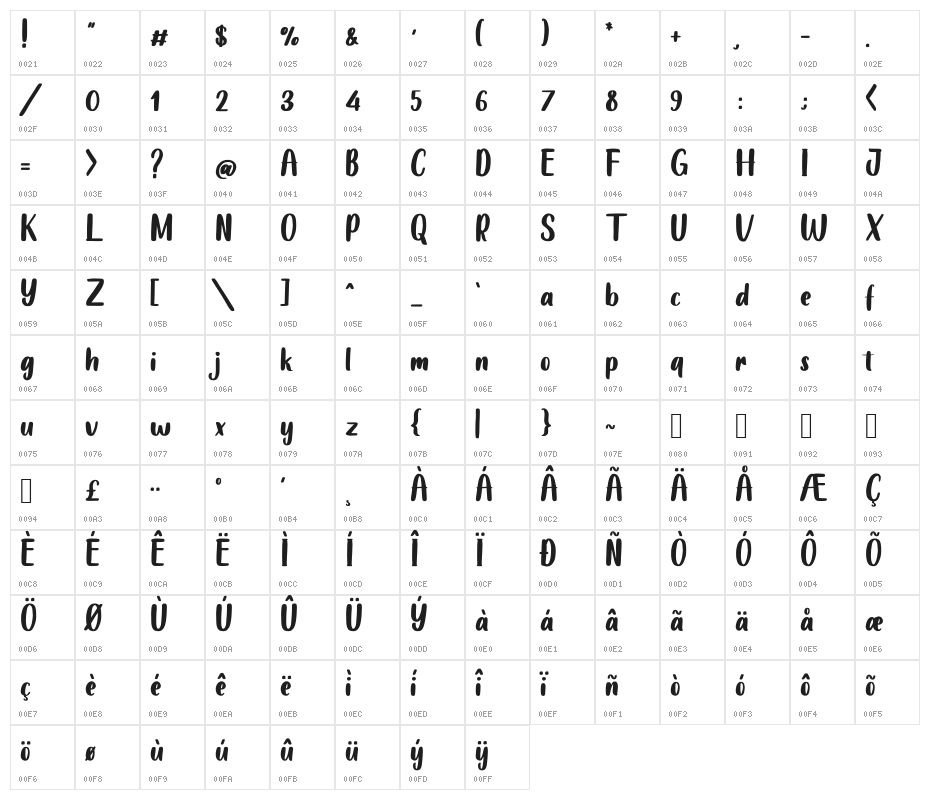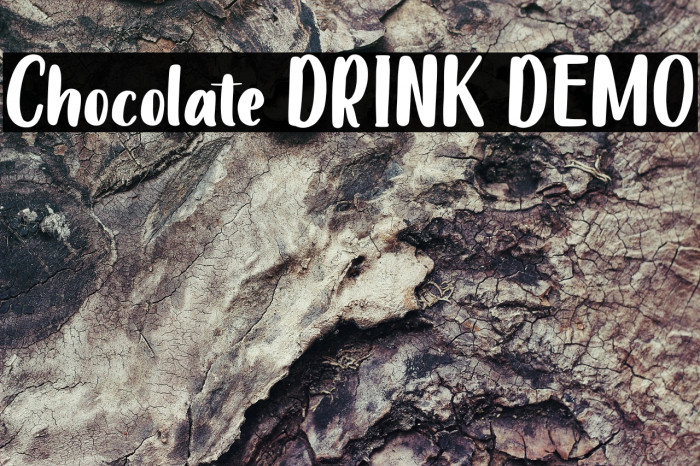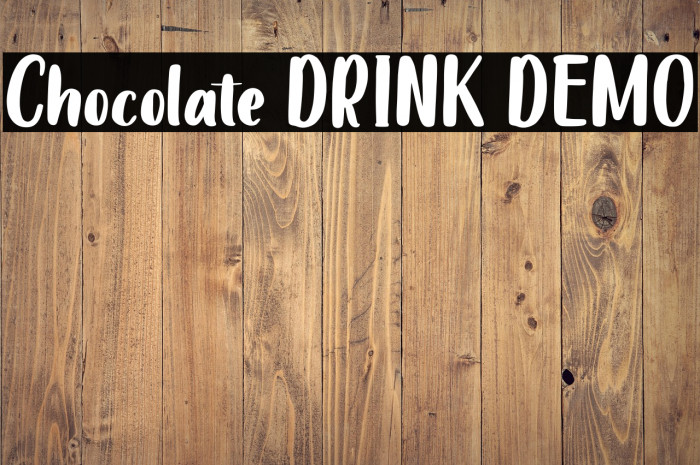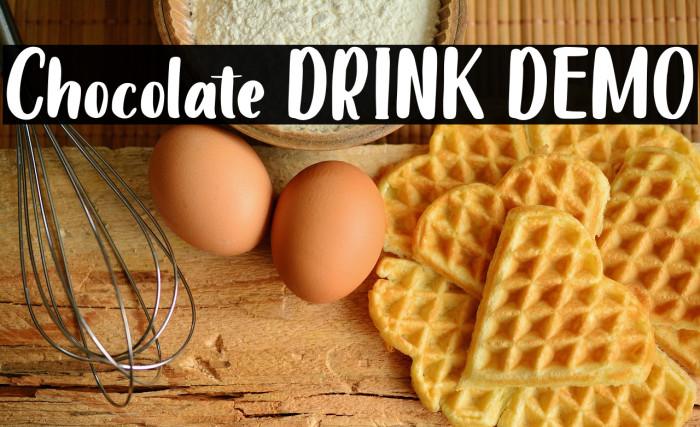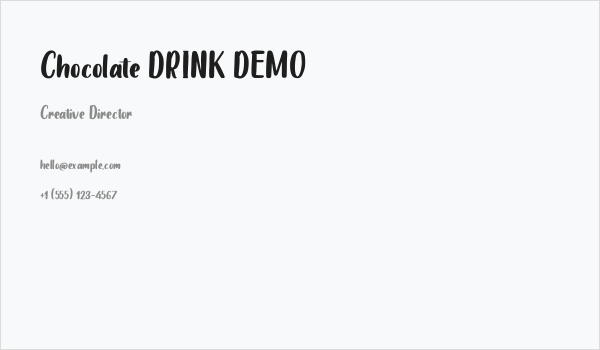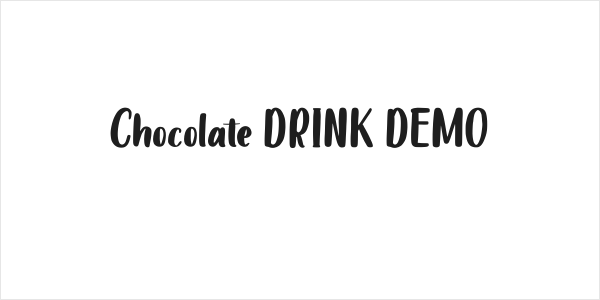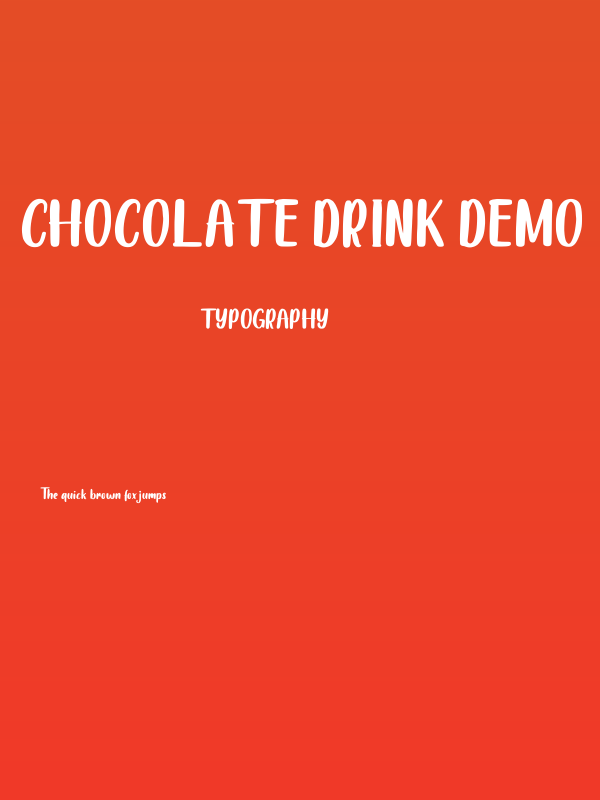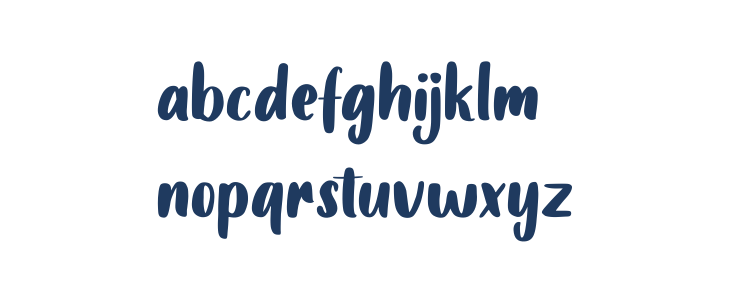
Chocolate DRINK DEMO Font
Chocolate DRINK DEMO Description
This font features a playful and bold handwritten style, characterized by its thick strokes and rounded edges. The uppercase letters are slightly taller than the lowercase, adding a sense of balance and harmony. The numbers and special characters maintain the same playful aesthetic, making them suitable for a variety of creative projects. The font's overall appearance is friendly and approachable, with a touch of whimsy that makes it ideal for informal and fun designs. Its boldness ensures readability while the rounded forms add a sense of warmth and friendliness.
Overall StylePlayful
Proposed ProjectsIdeal for children's books, playful branding, greeting cards, and social media graphics.